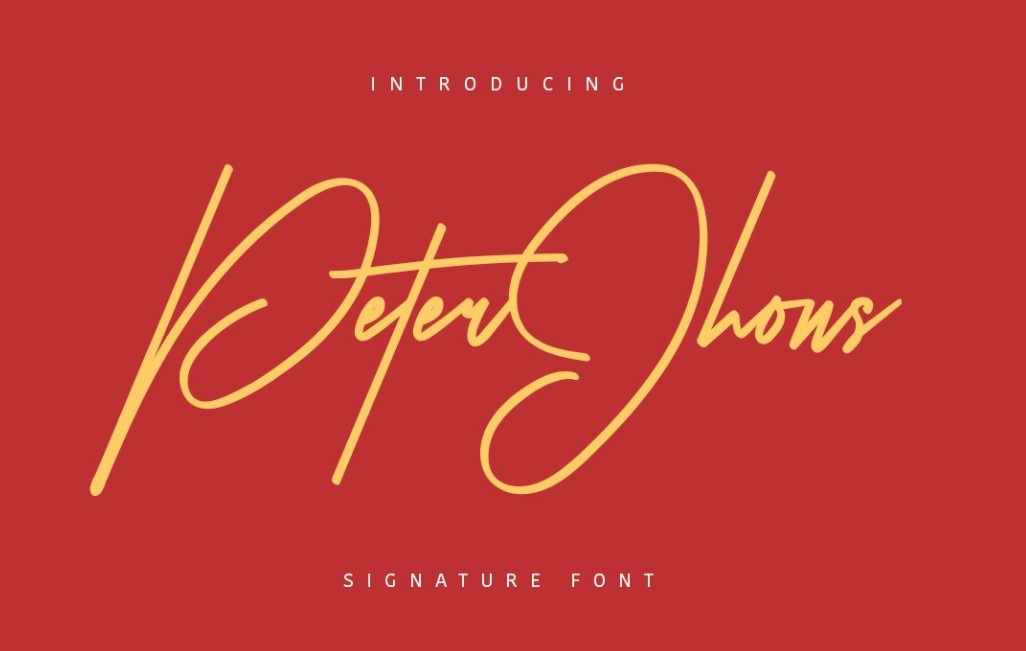
Peter Jhons Signature Font
Its name is a font, a top-notch decorative font according to the cutting-edge era. That has created through butterfly kiss font and released through linotype font foundry while you remember that 1990.
Style of Peter Jhons Signature Font Free